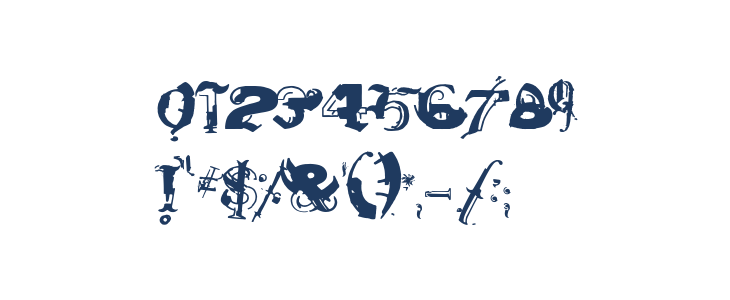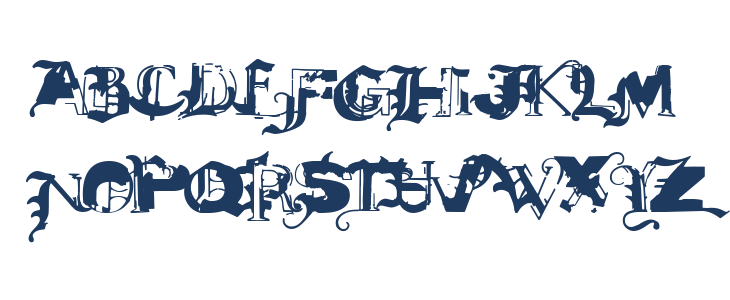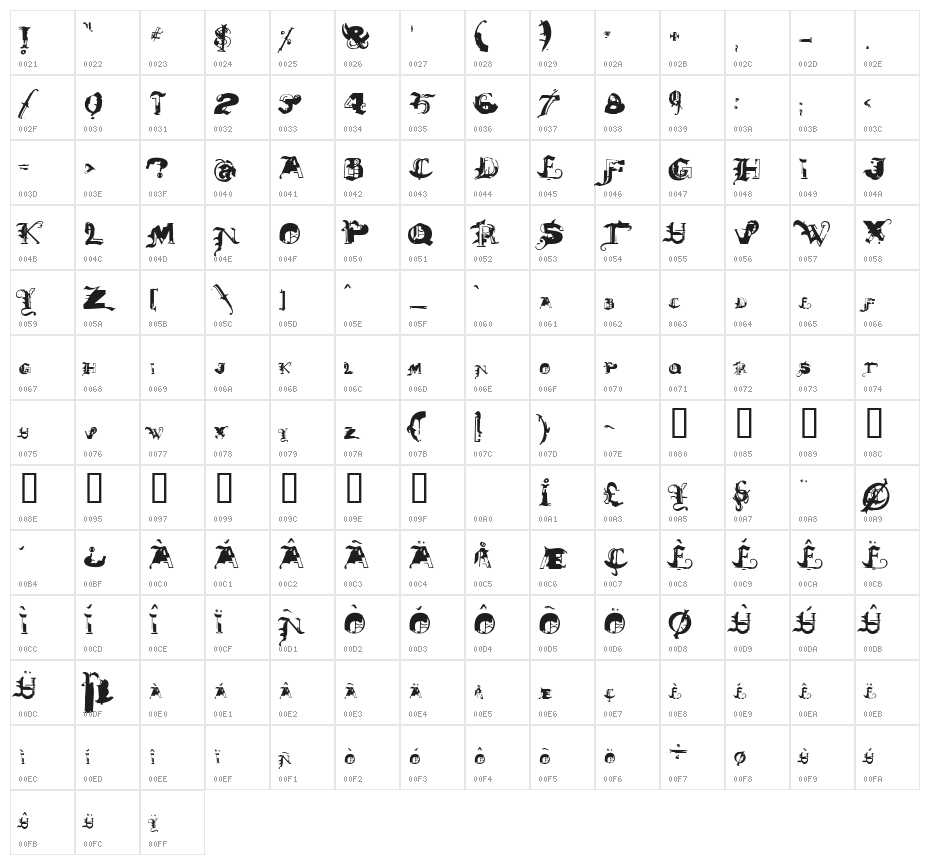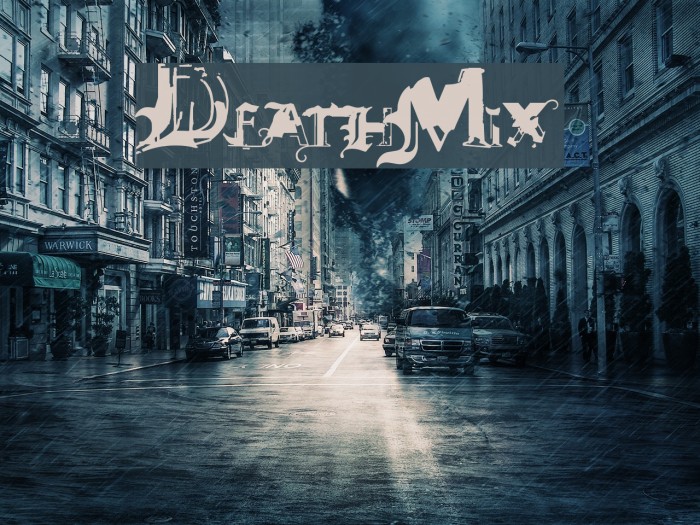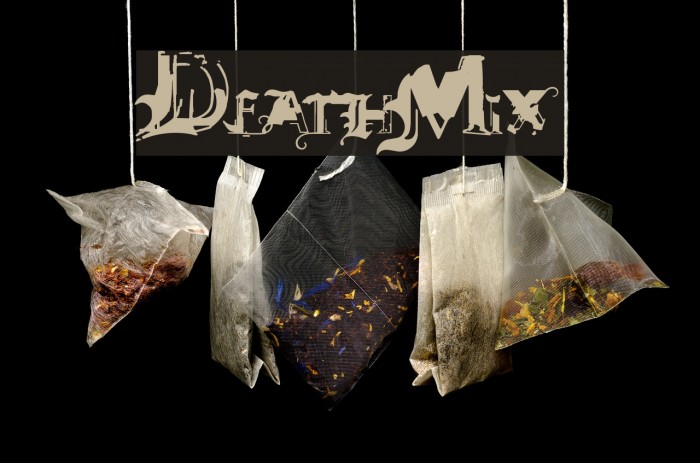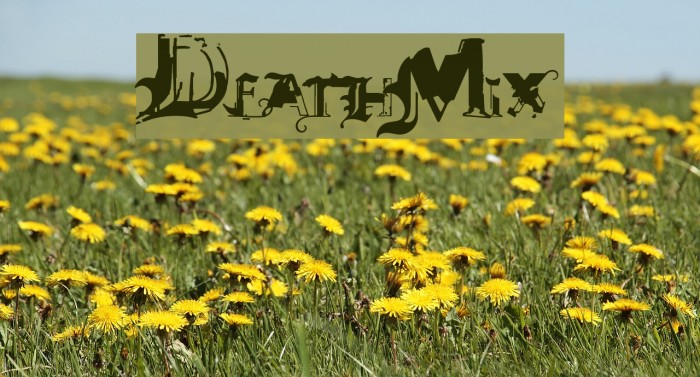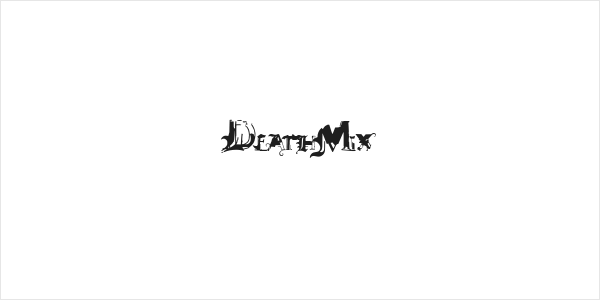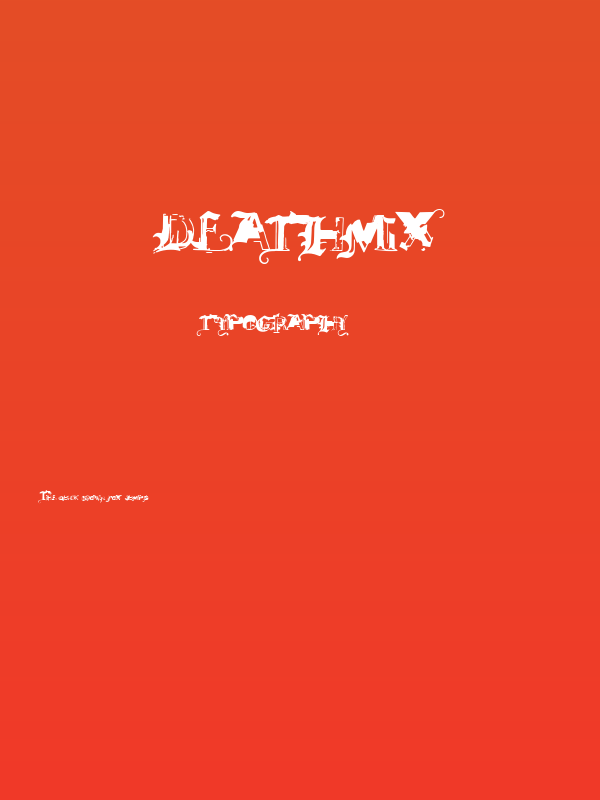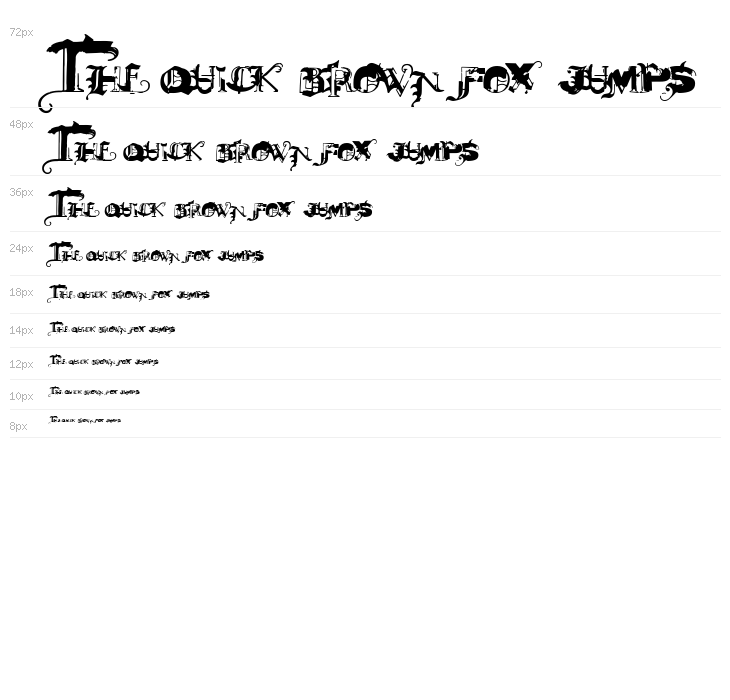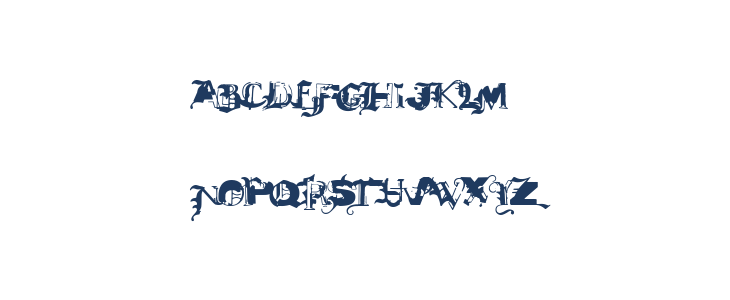
DeathMix Font
DeathMix Description
This font features a highly decorative and gothic style, characterized by intricate details and flourishes that give it a dark, mysterious appearance. The letters are bold and heavily stylized, with sharp edges and dramatic curves that create a sense of movement and intensity. The uppercase and lowercase letters maintain a consistent theme, with each character adorned with unique embellishments that enhance its ornate design. Numbers and special characters follow the same aesthetic, ensuring a cohesive look across all elements. The overall impression is one of elegance mixed with a hint of rebellion, making it suitable for projects that require a bold and striking visual impact.
| Overall Style | Gothic, Decorative |
| Proposed Projects | Ideal for horror-themed posters, gothic event invitations, album covers, and tattoo designs. |